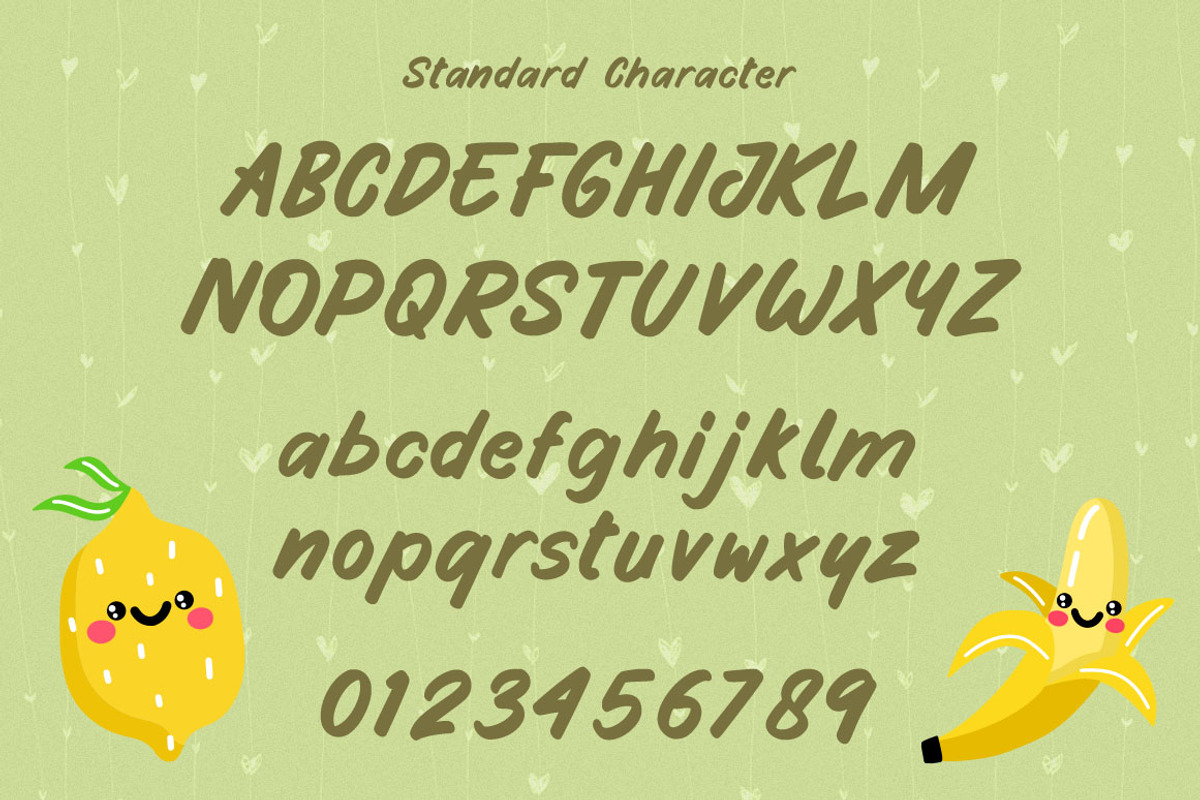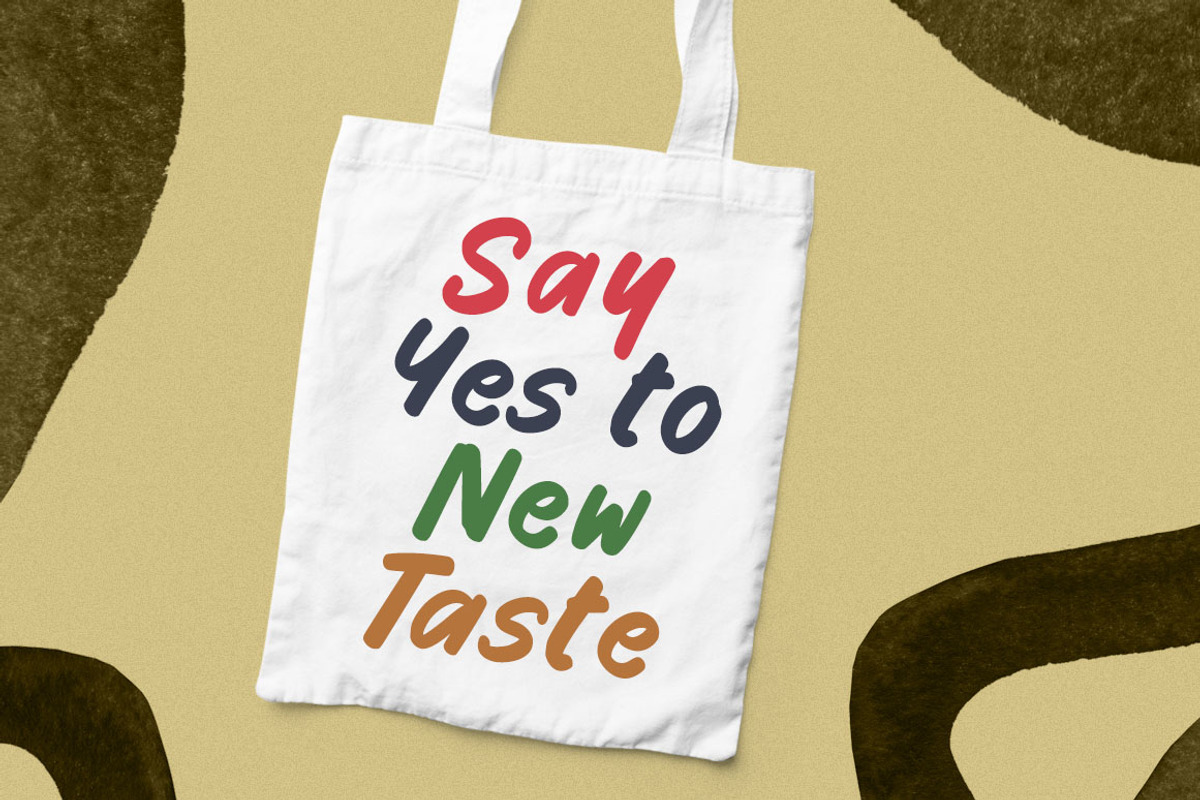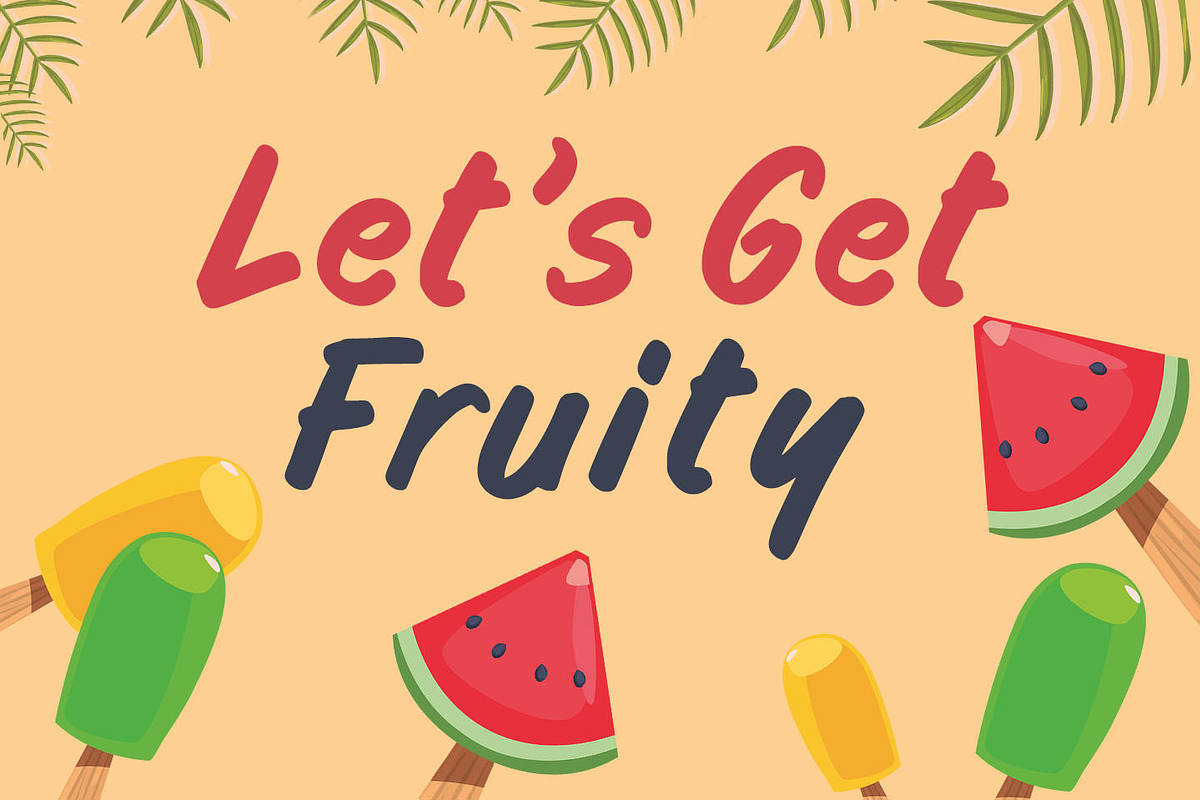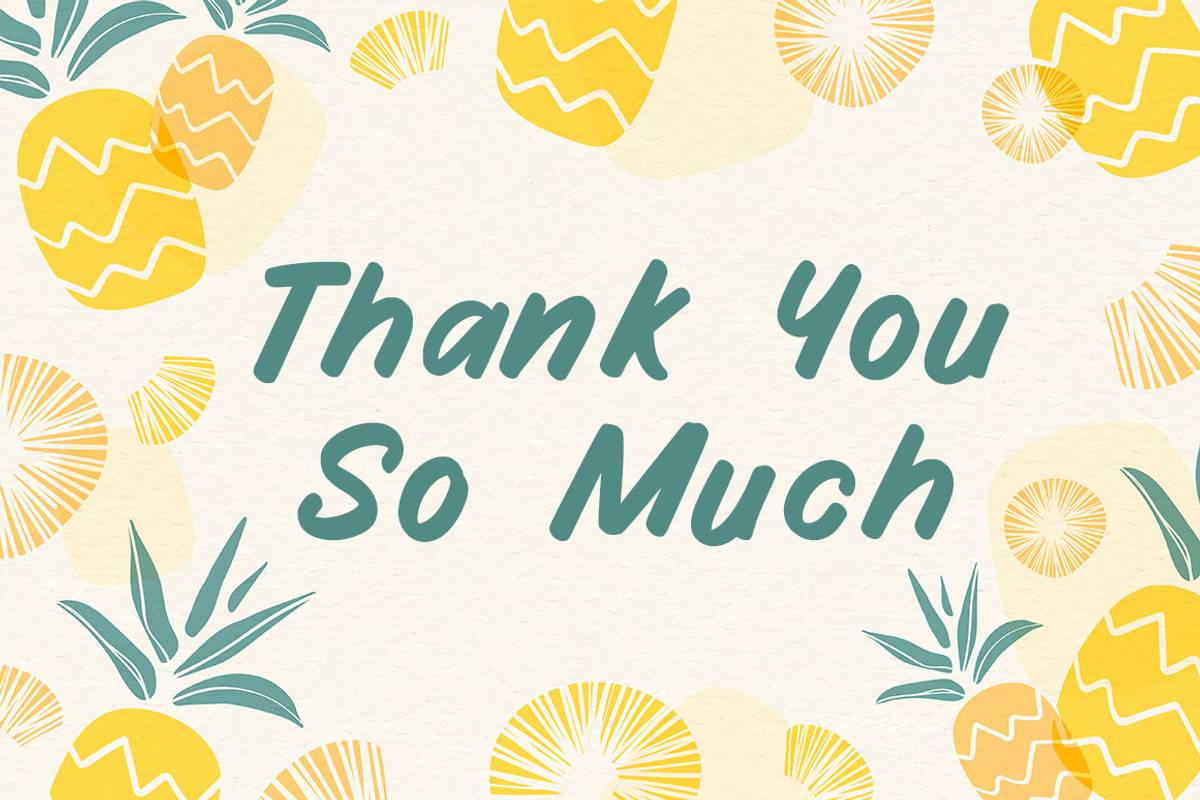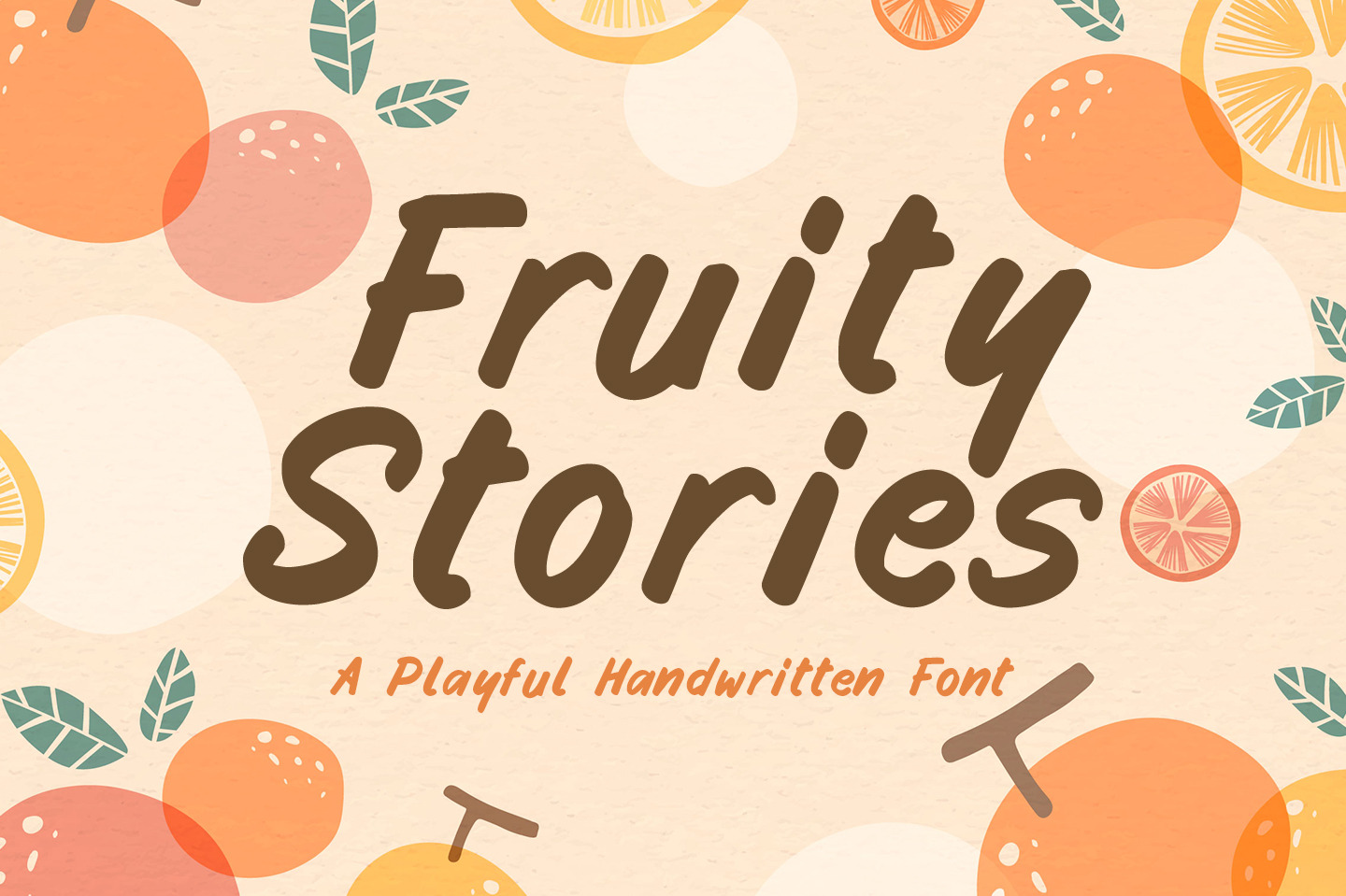
Fruity Stories - Fun Display Font
Introducing Fruity Stories Font. A playful and unique font. It has a unique and different style and will give your design a fun touch.
Fruity Stories would be perfect for logos & branding, photography, watermark, social media posts, advertisements, invitation, product designs, label, stationery, wedding designs, product packaging, special events or anything that need handwriting taste.